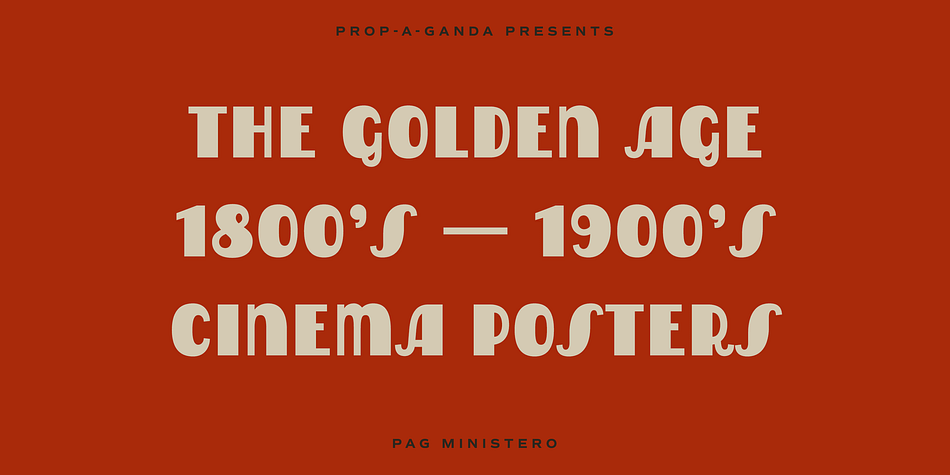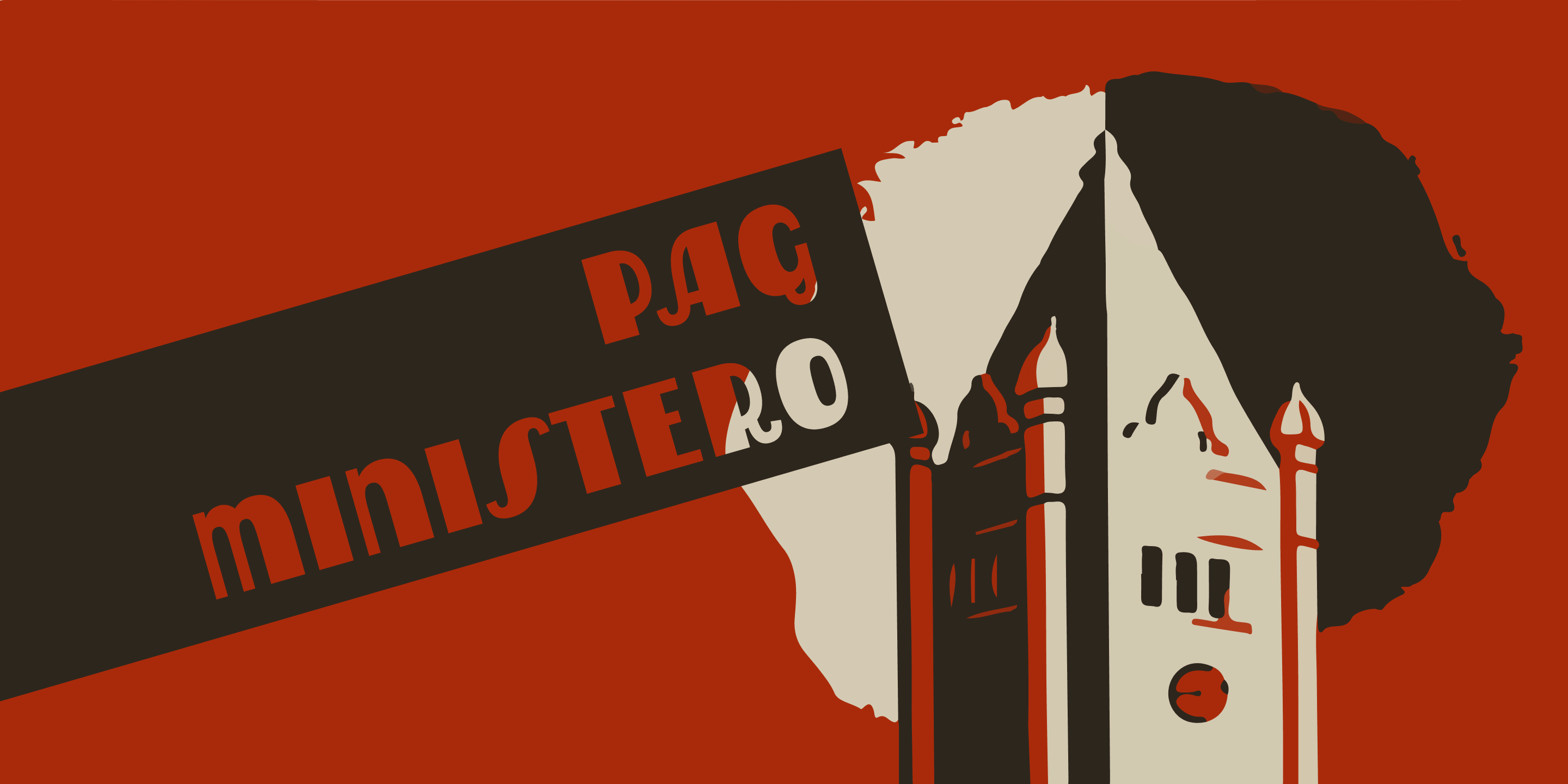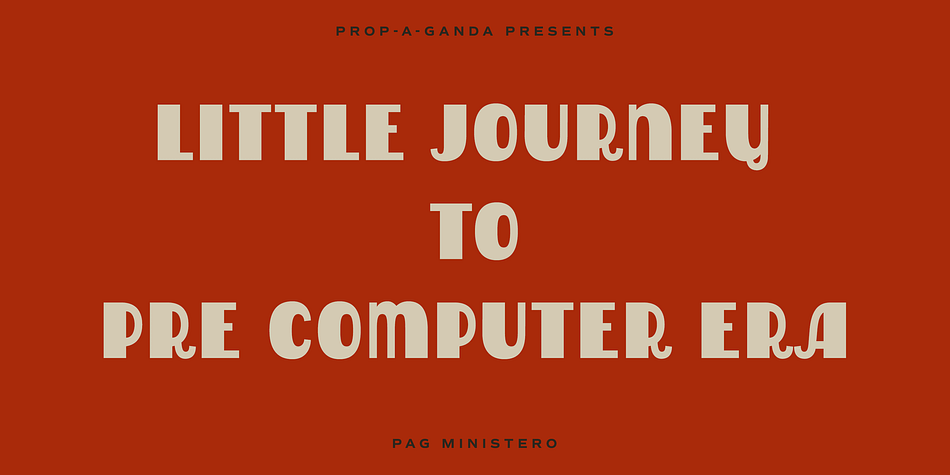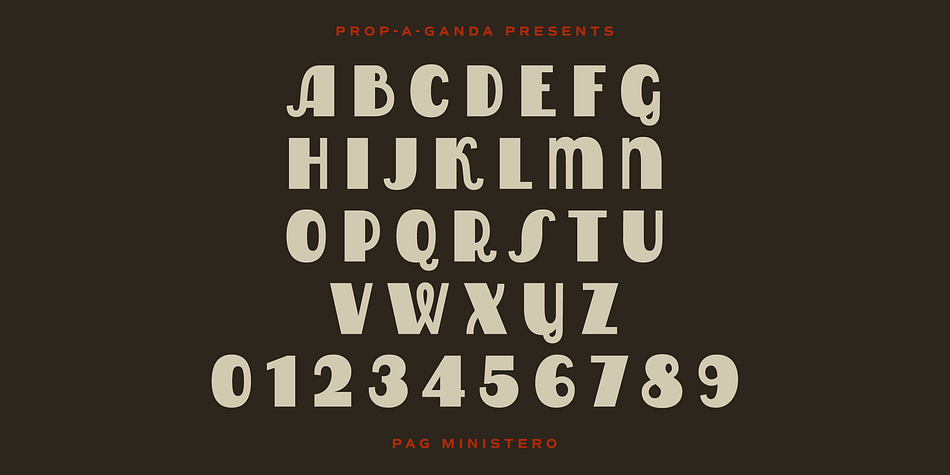
PAG Ministero is a retro font published by Dharma Type.
Prop-a-ganda(PAG) offers retro-flavored fonts inspired by lettering on retro propaganda posters, retro advertising posters, retro packages all the world over. This is perfect font for your retrospective project.
PAG Minister reminds us of old cinema posters or old magazine advertisements. Its vertical line is extremely bold, some of the stroke are curled and winding. With PAG Minister, usual typed text is changed into impressive design.